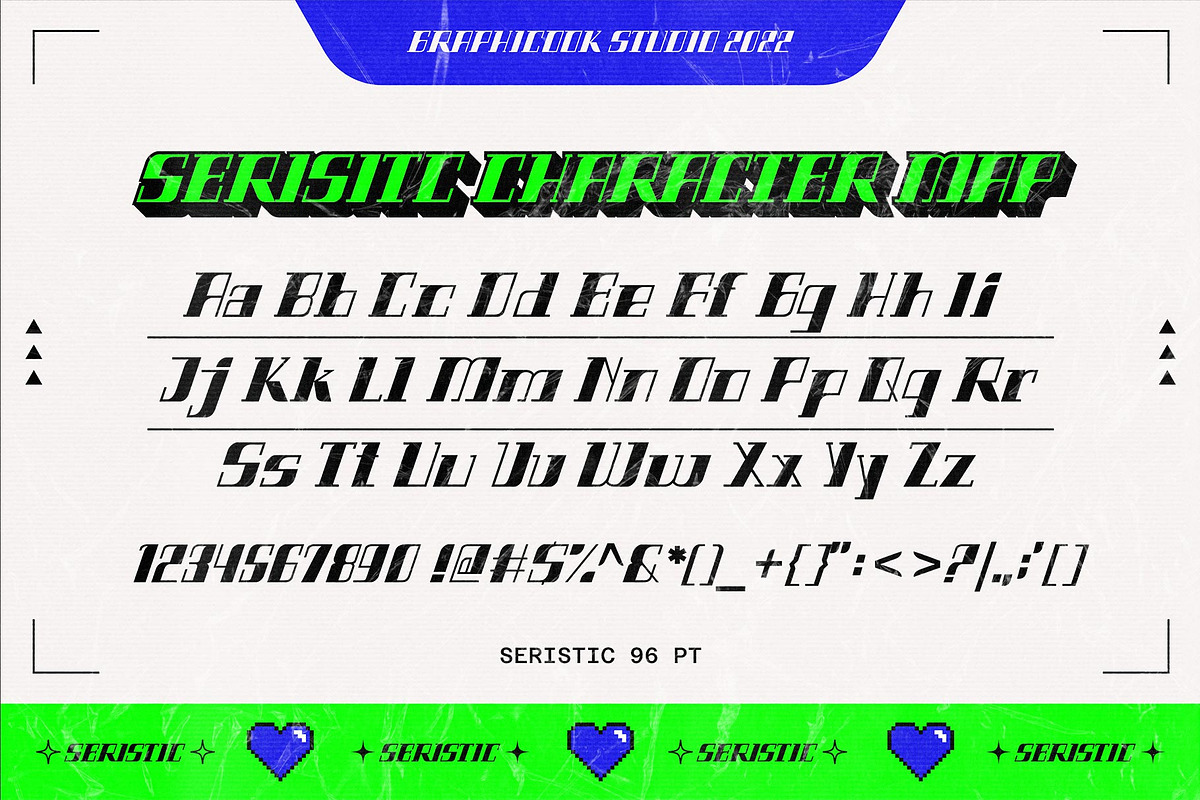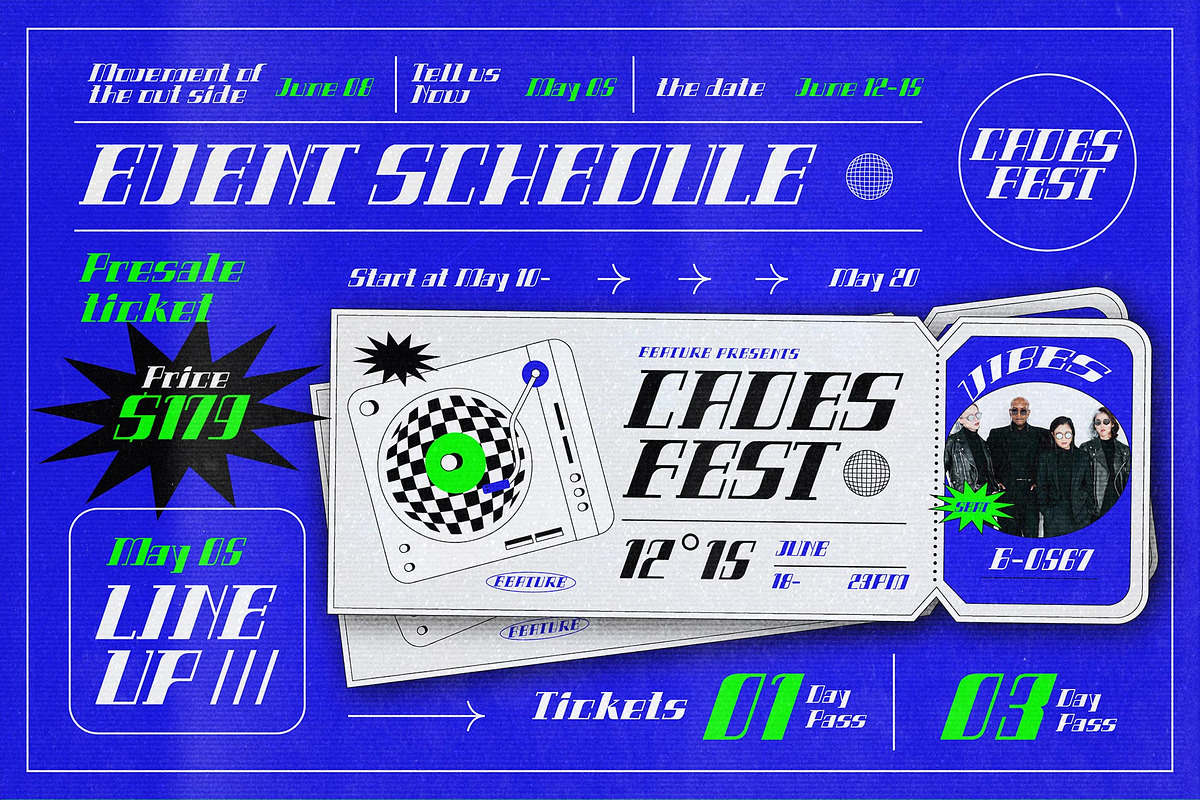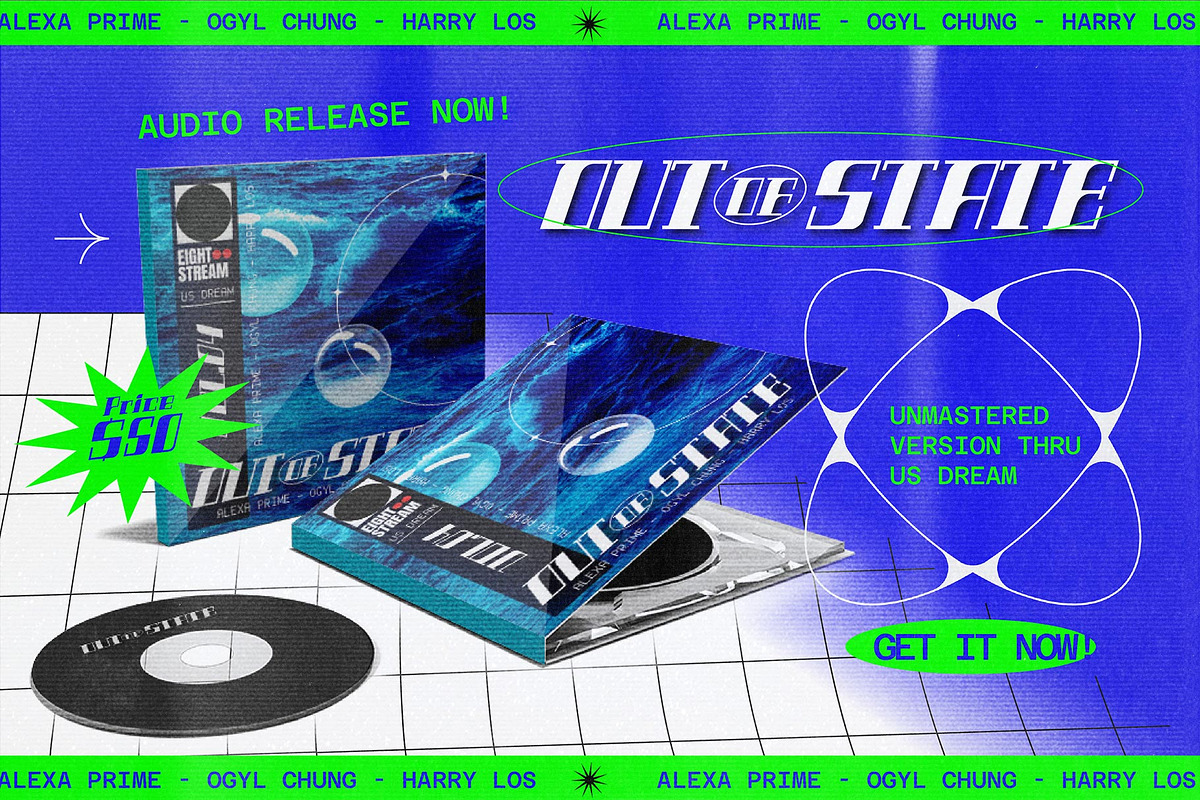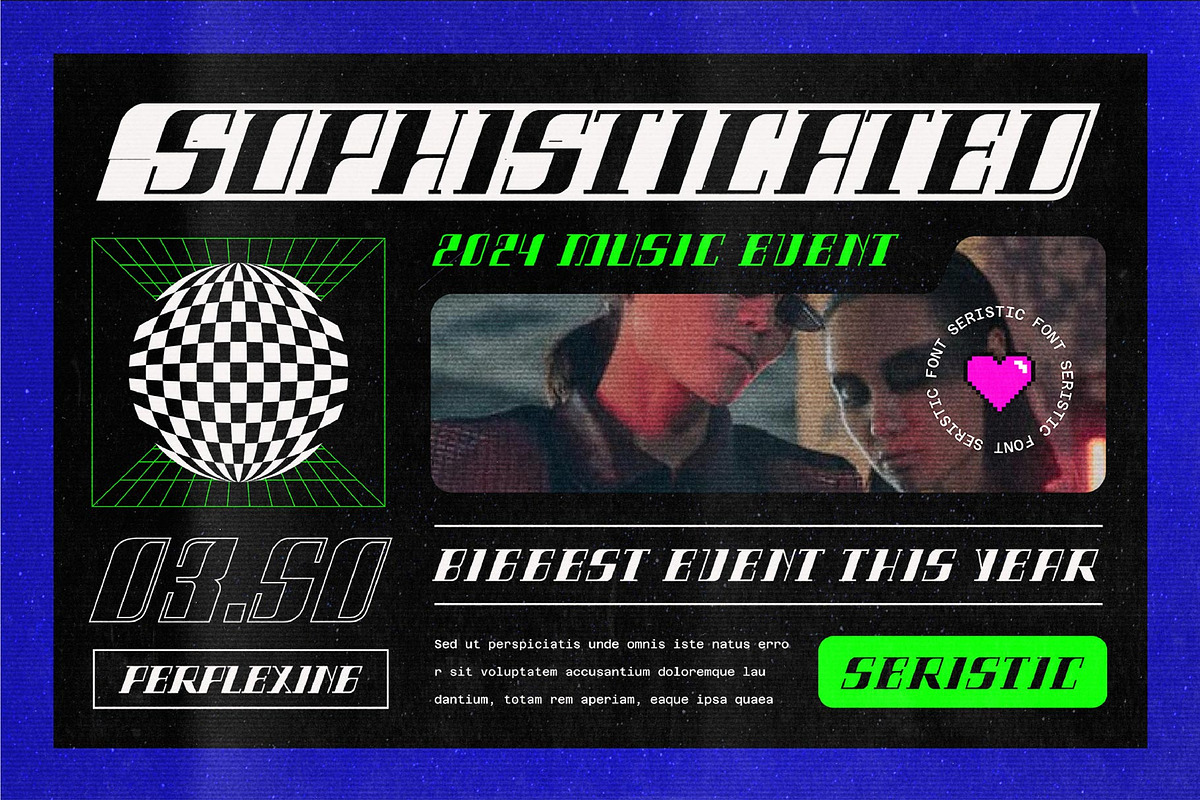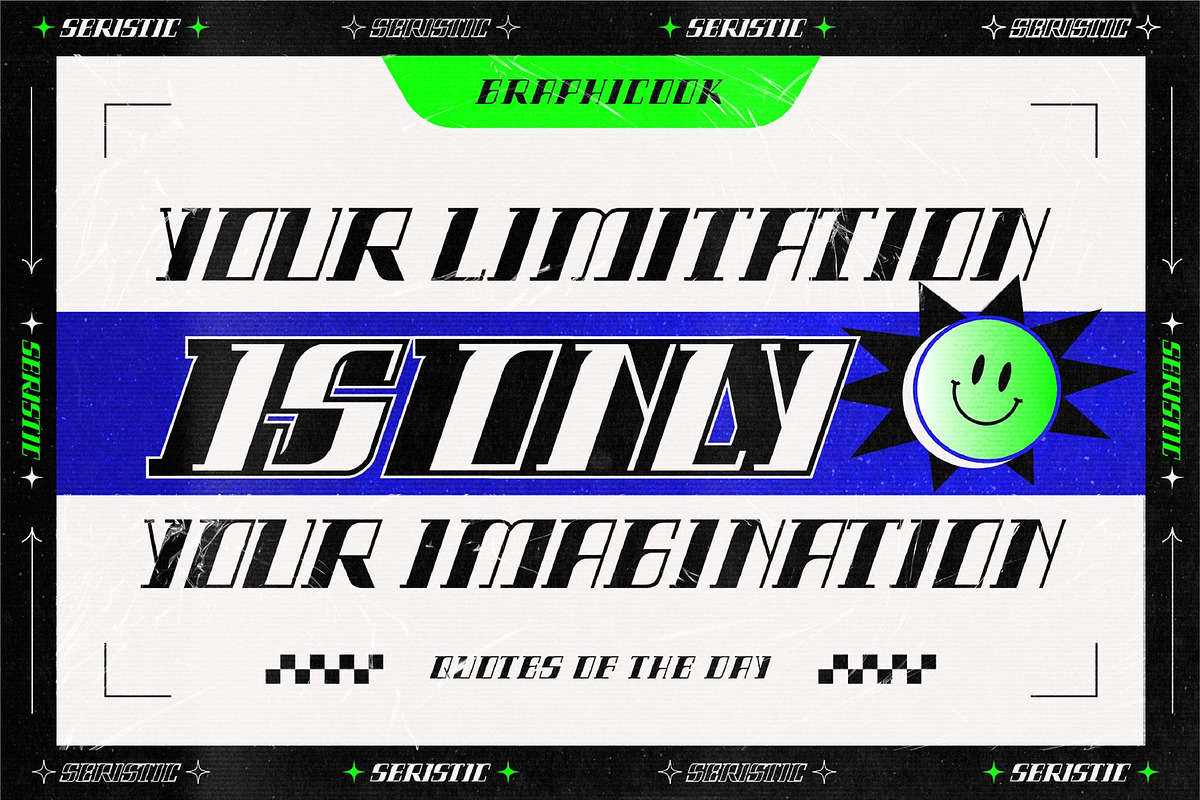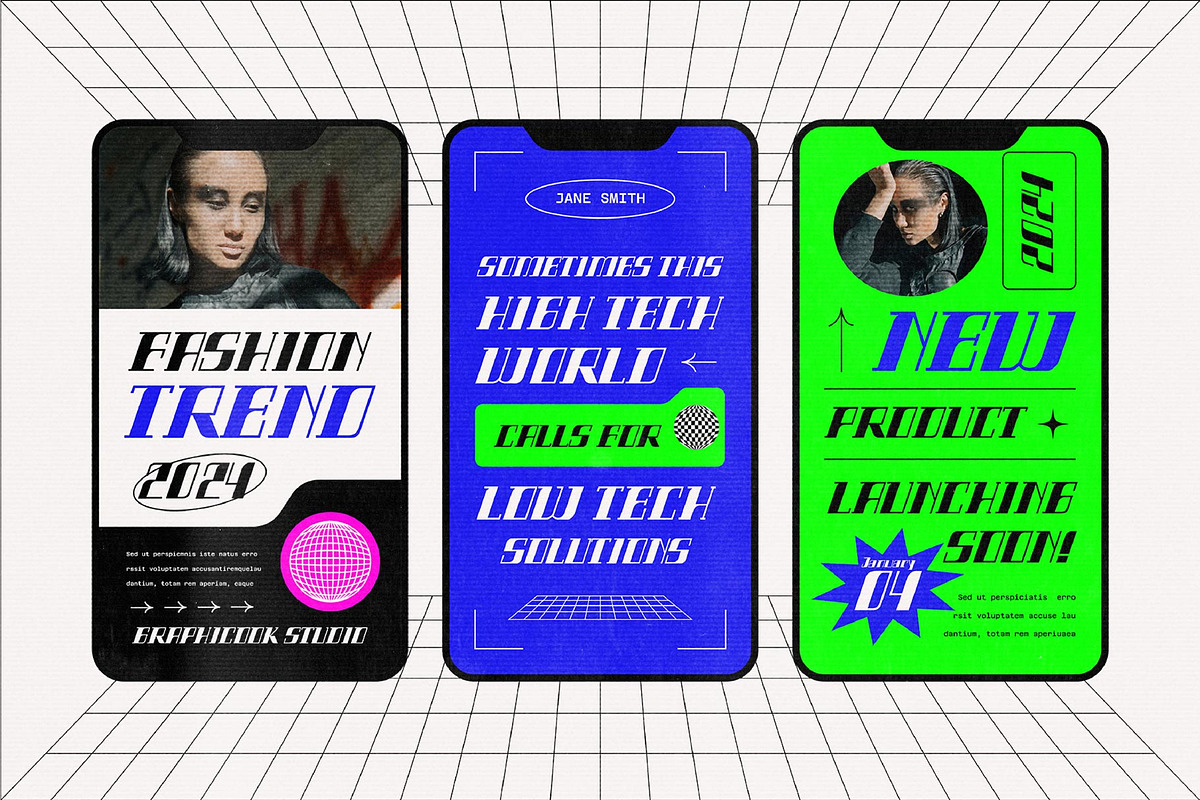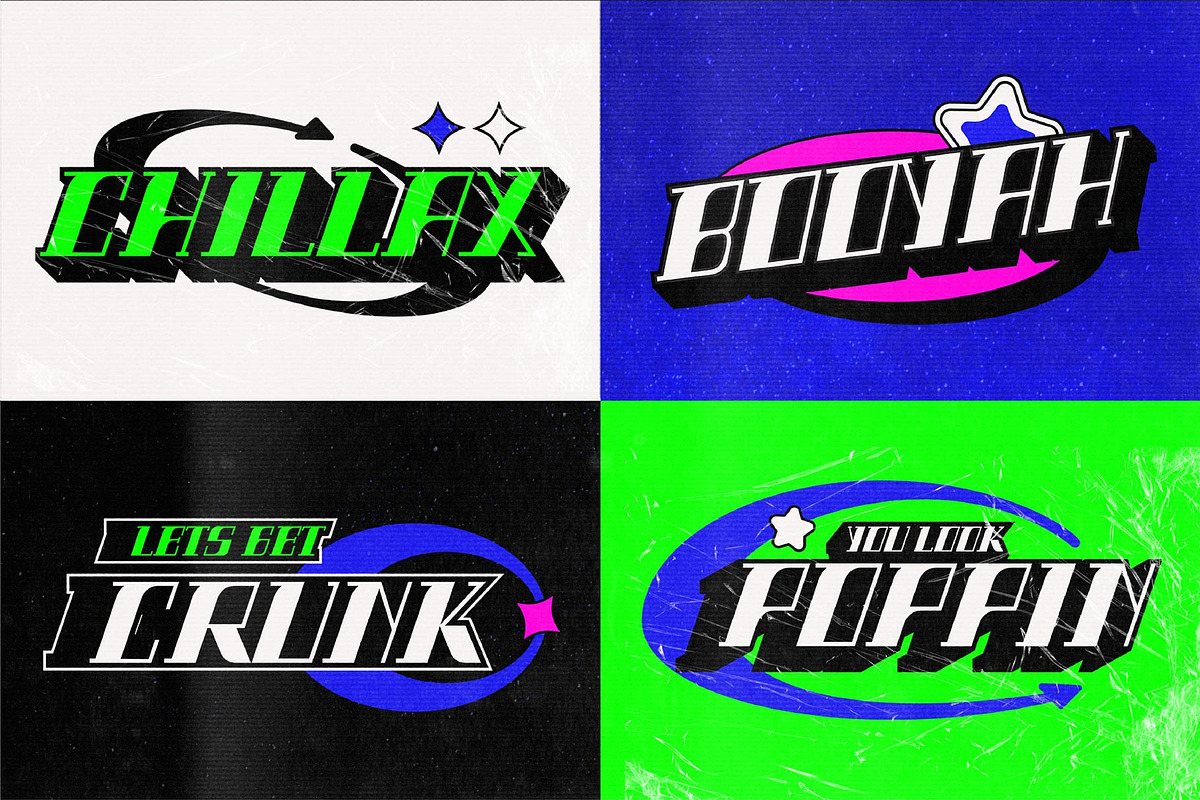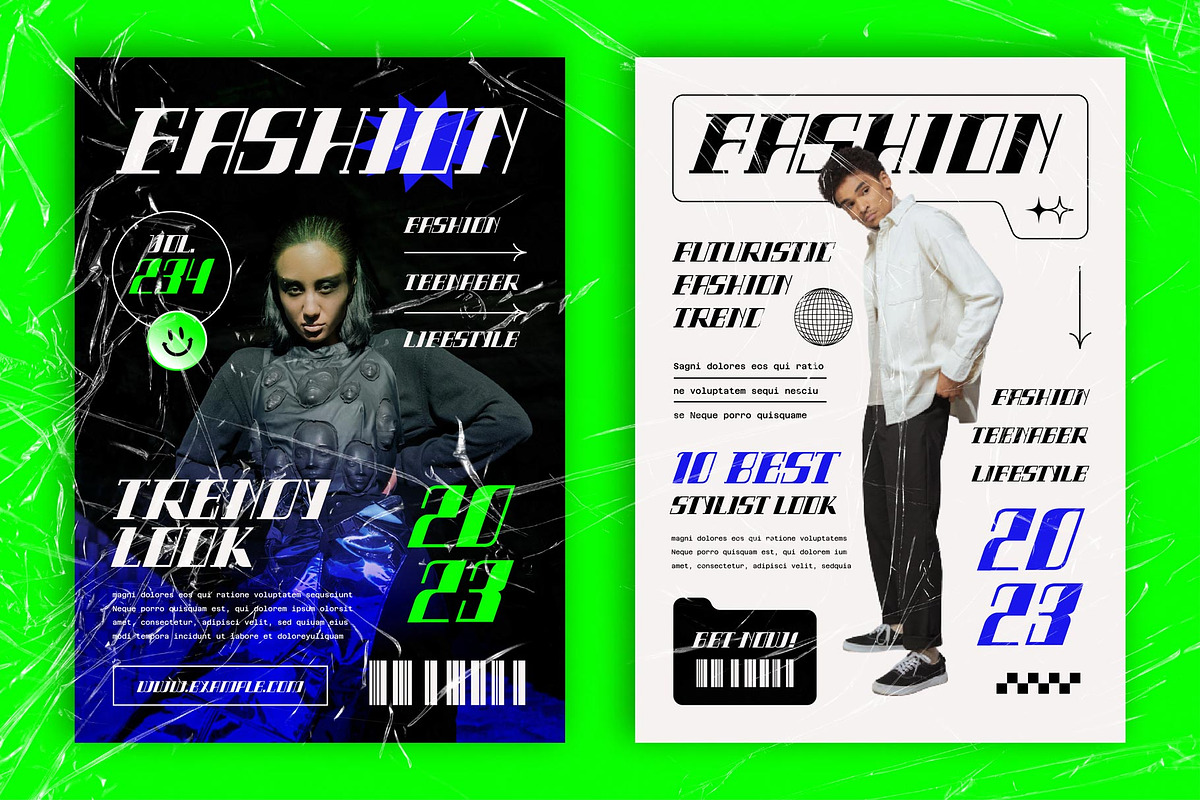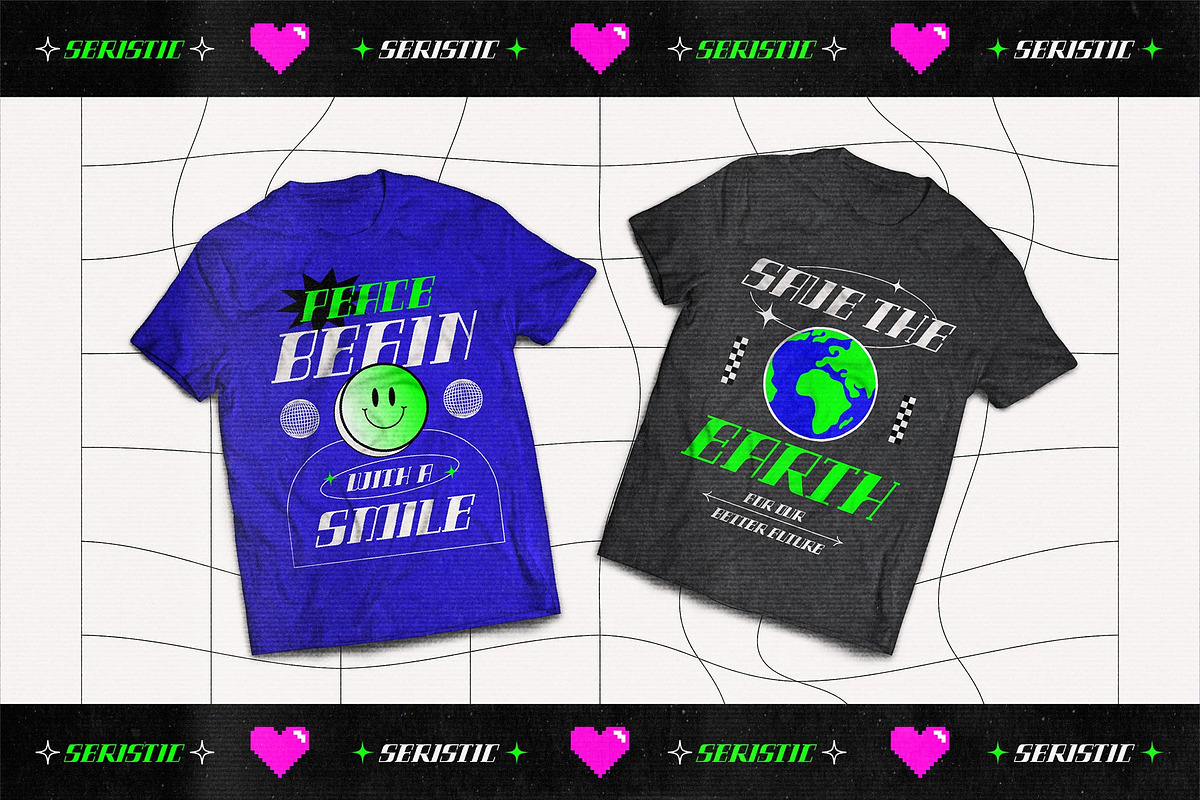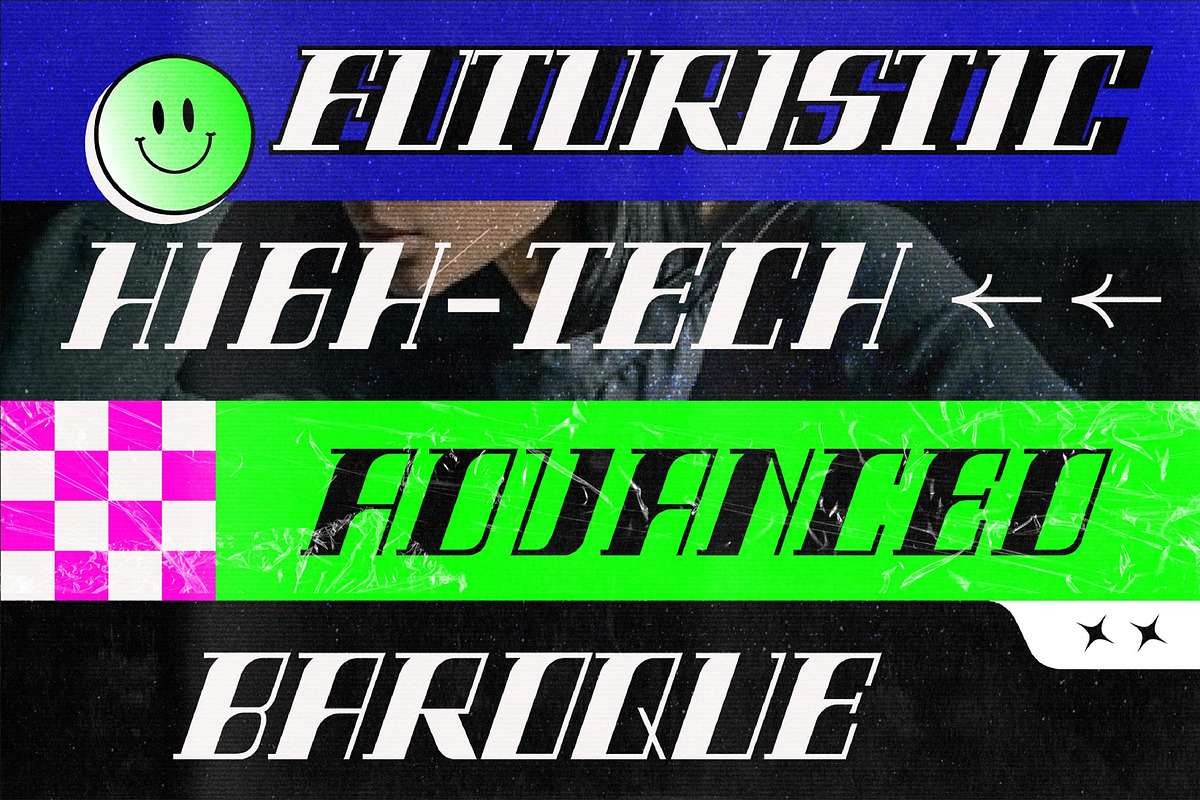
Seristic Y2K Display Typeface
Introducing Seristic Display typeface, heavy influence by Y2K design era through music and their pop culture.
Seristic is perfect for headlines, logotypes, magazines, packages, movies, games, and many more.